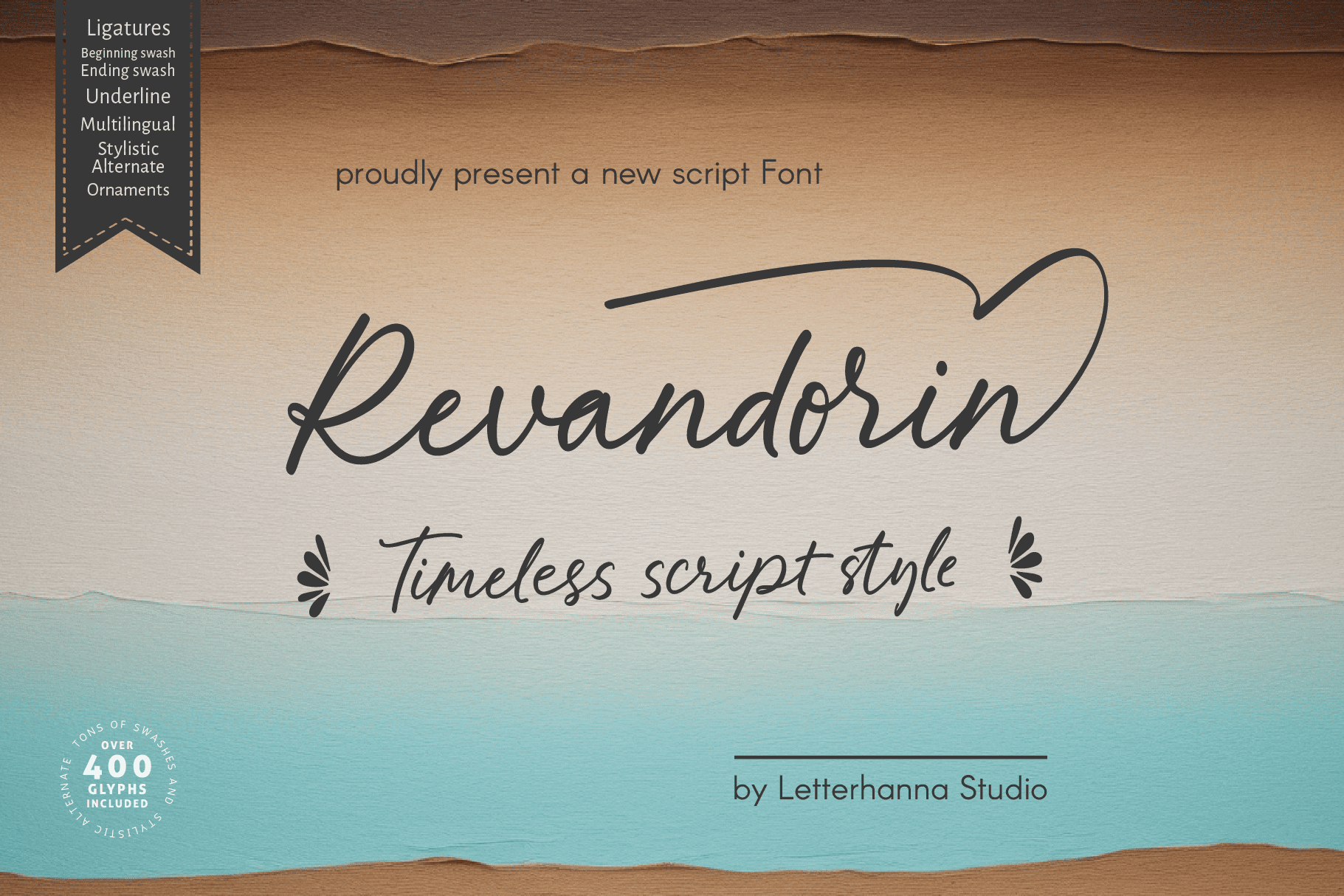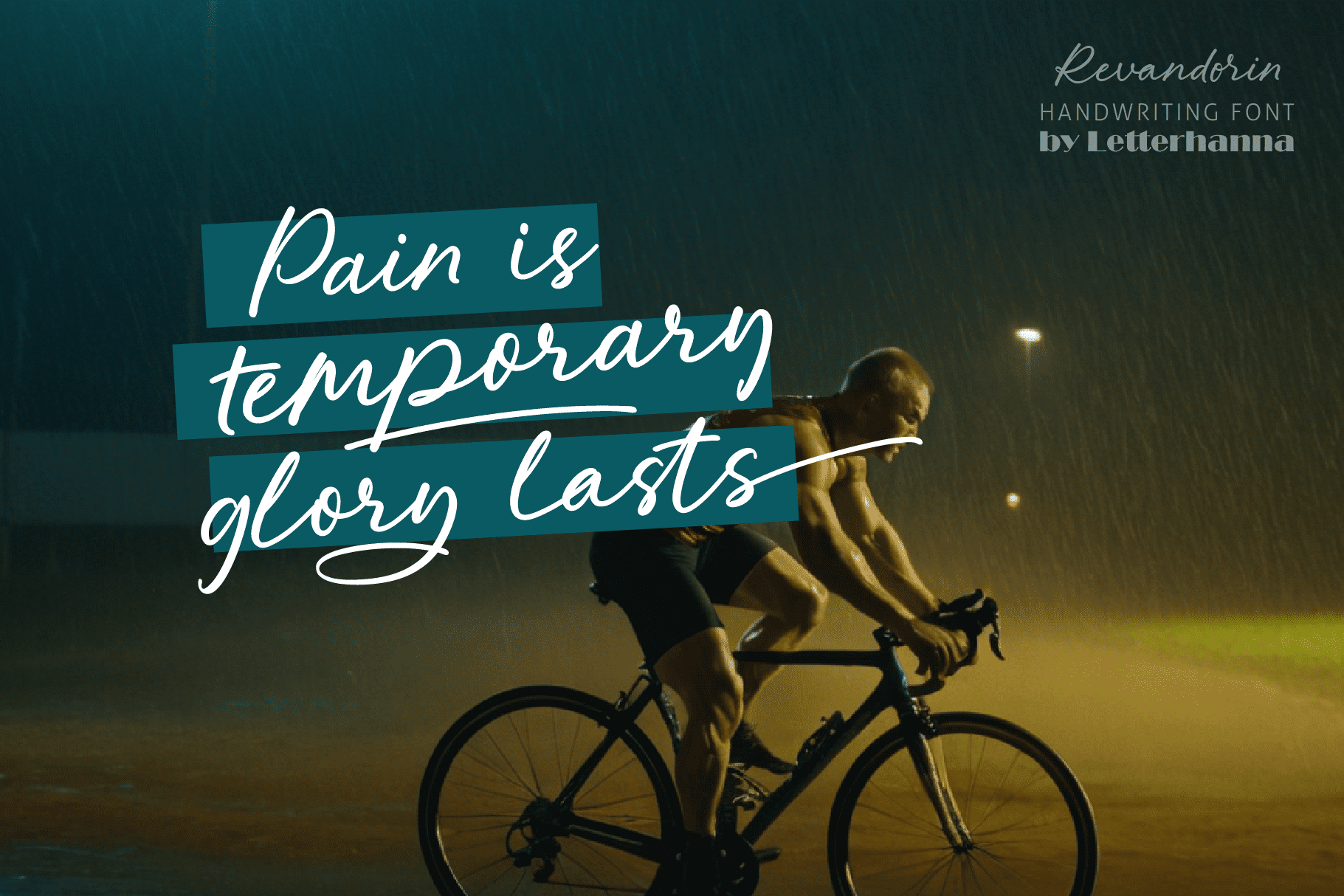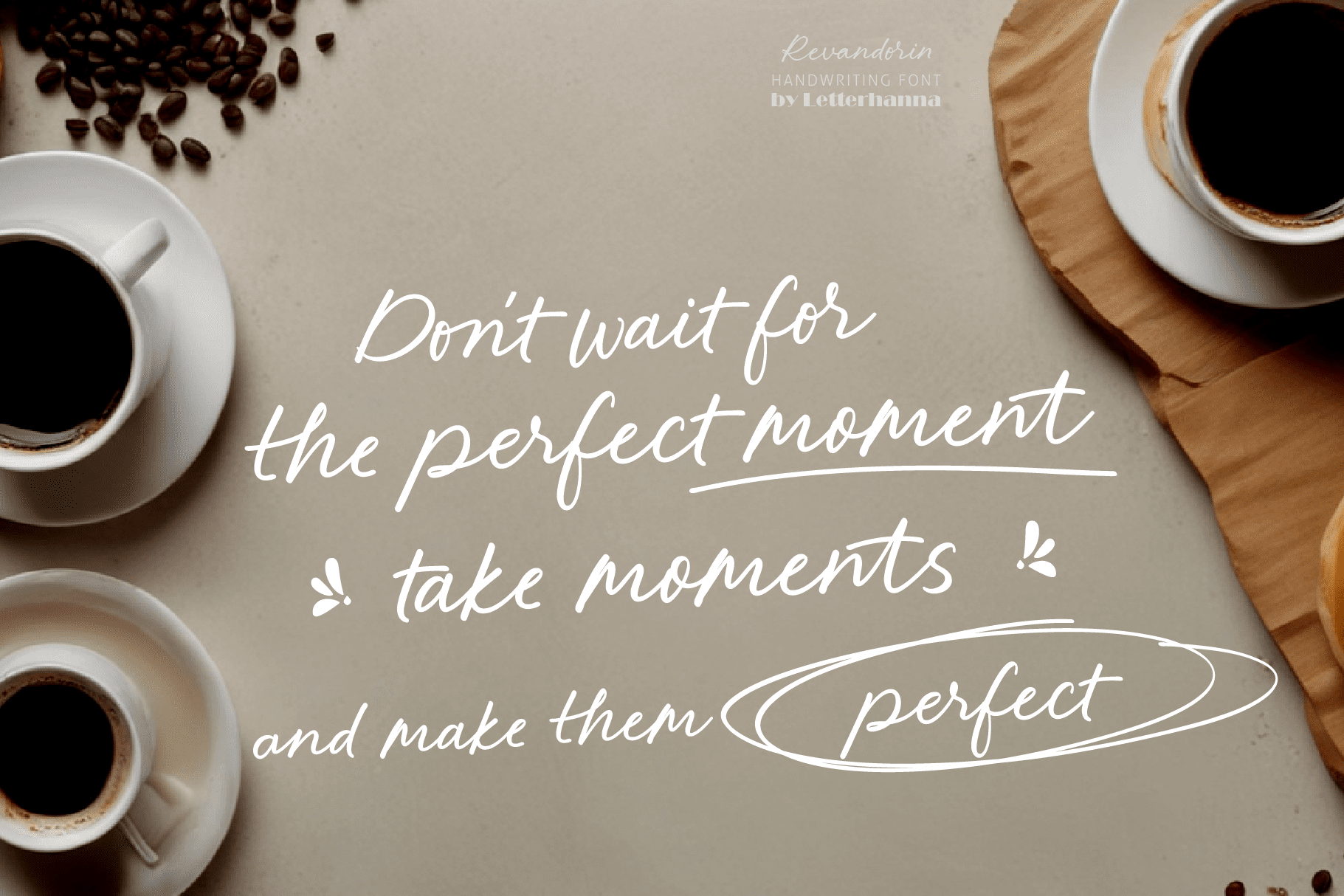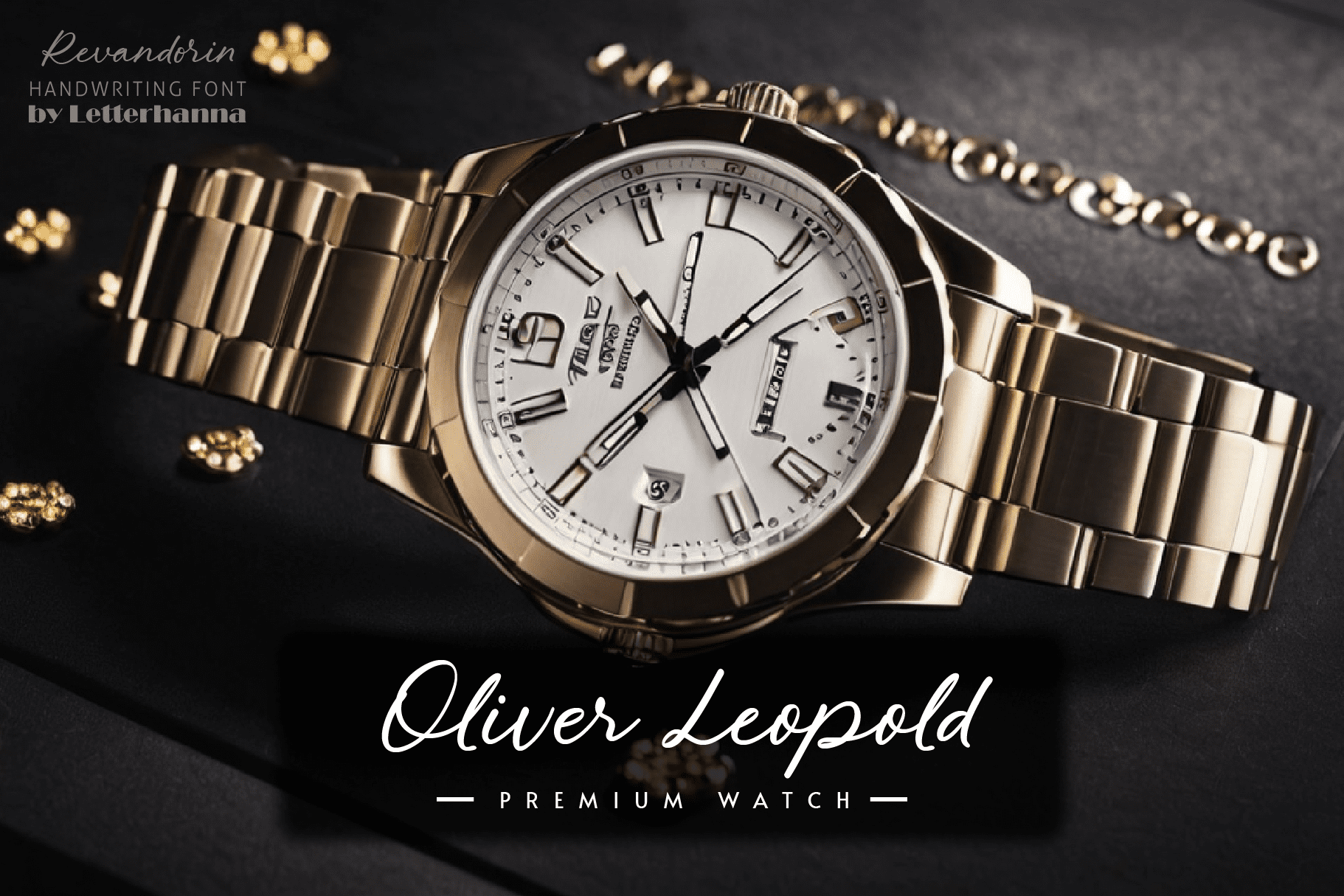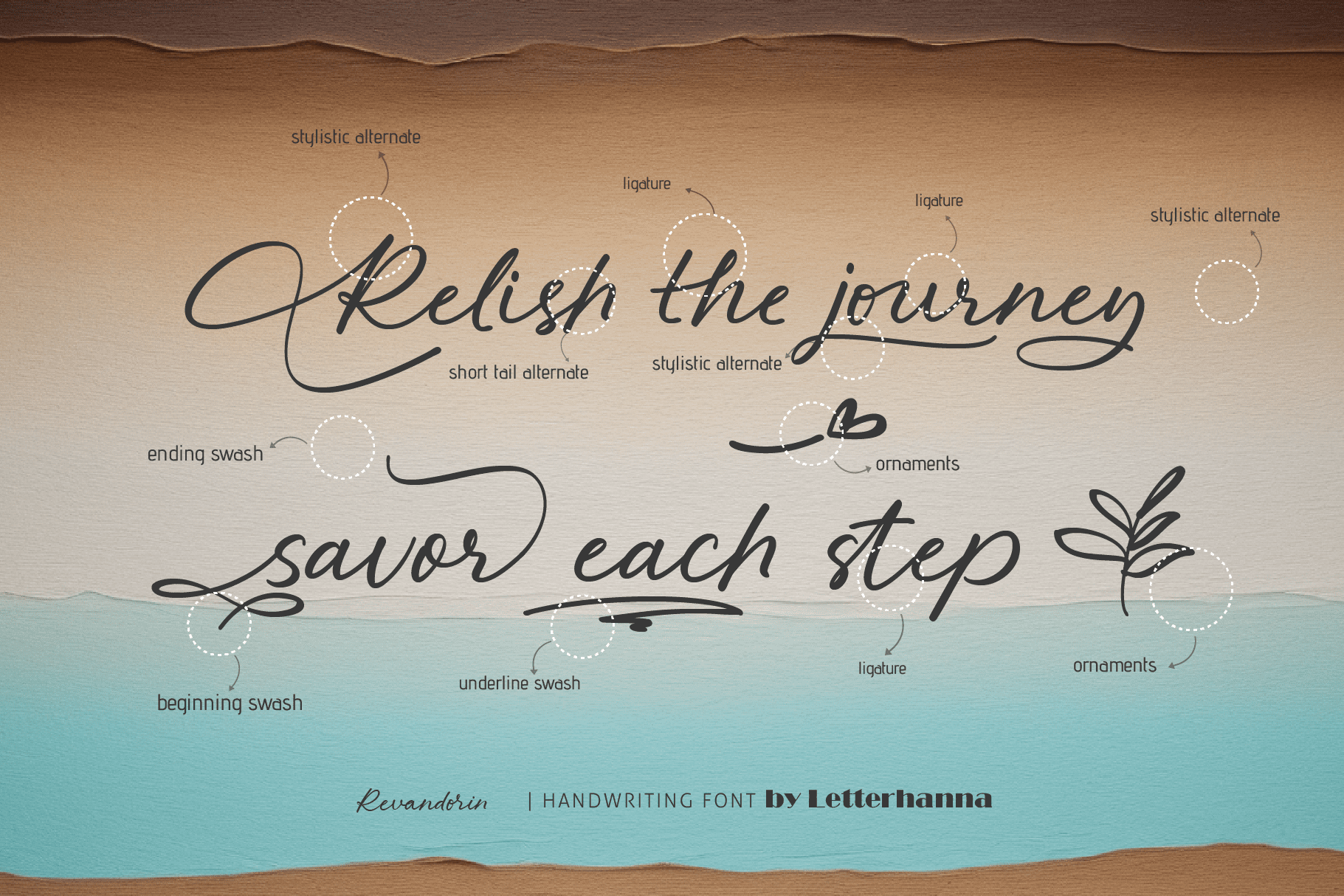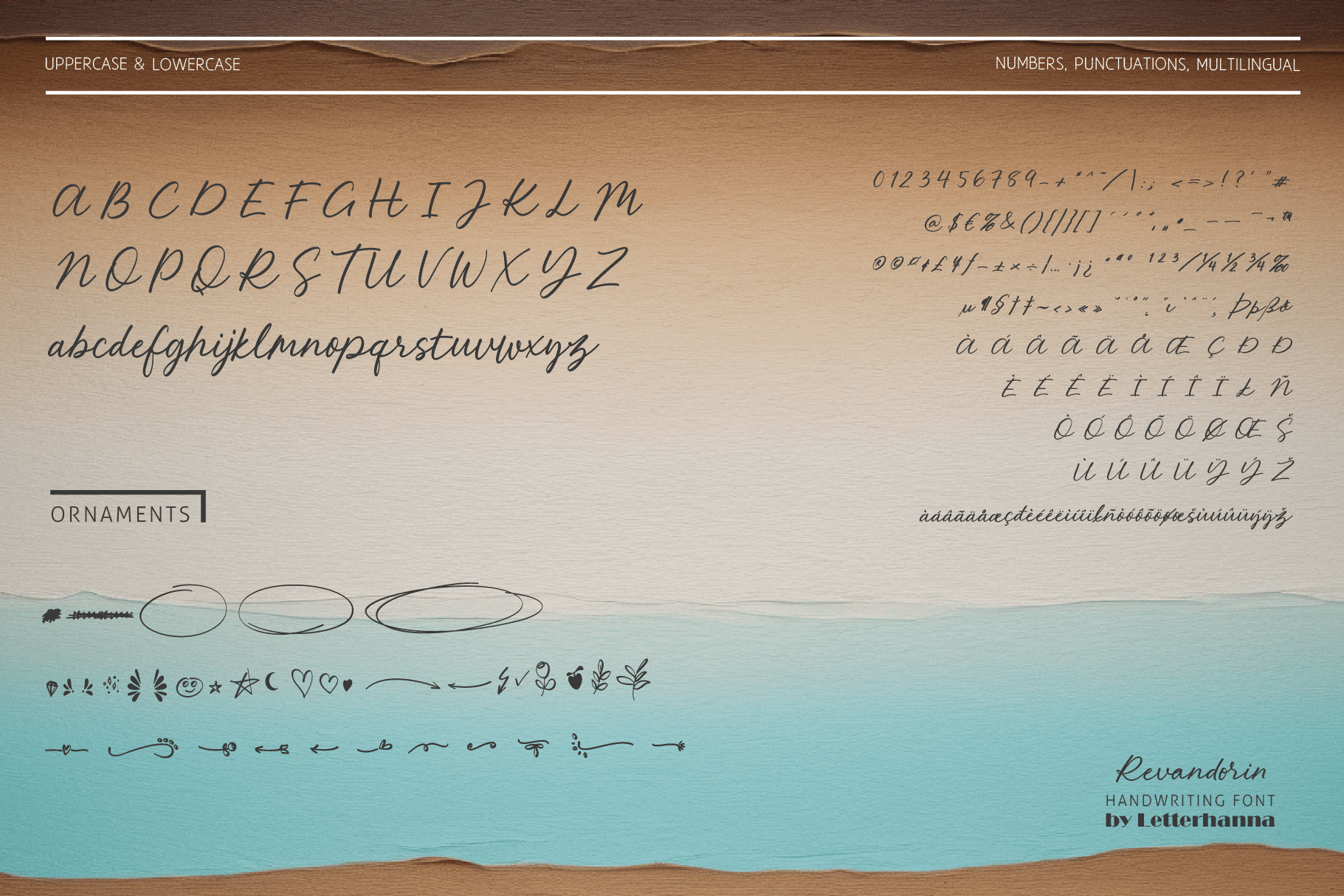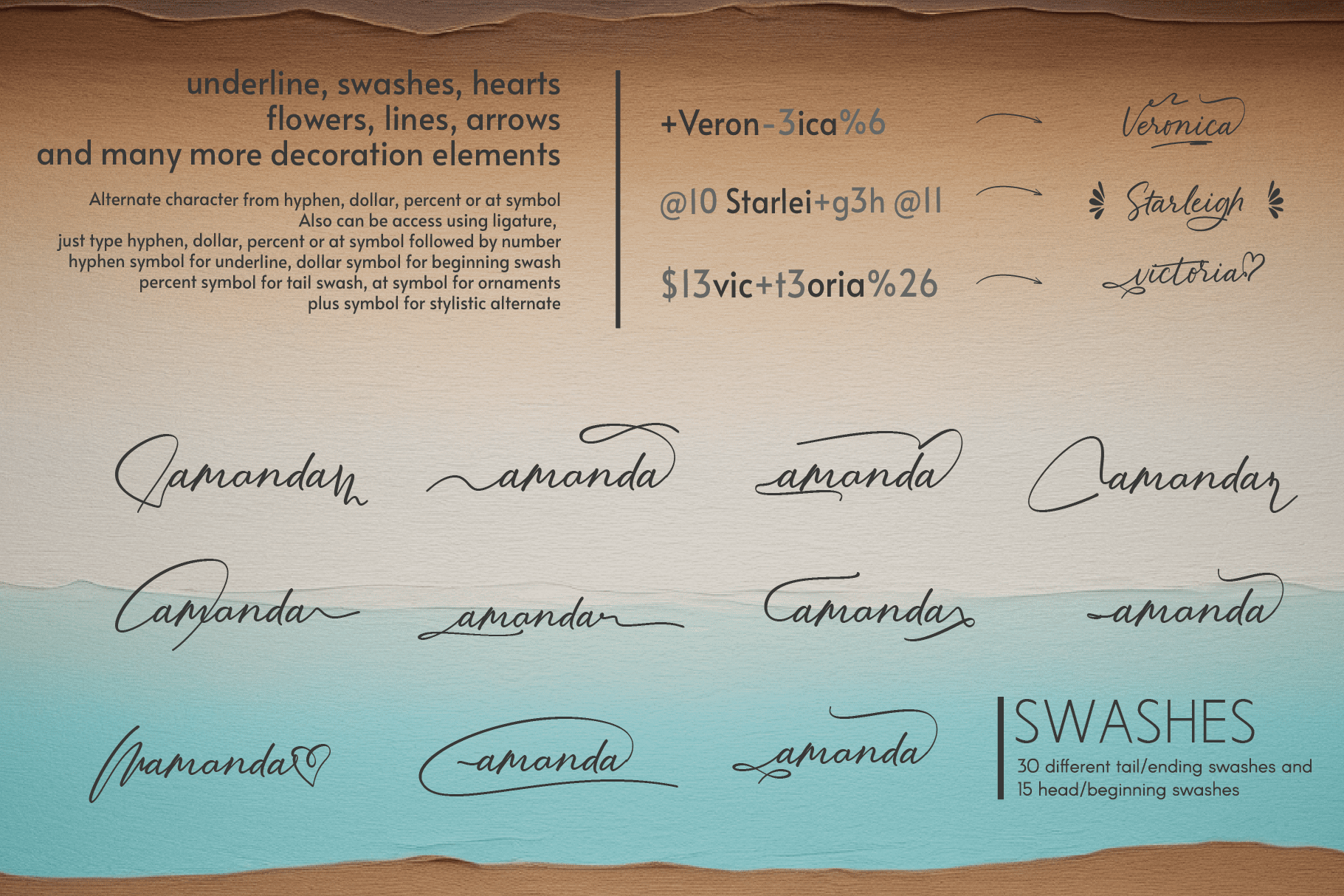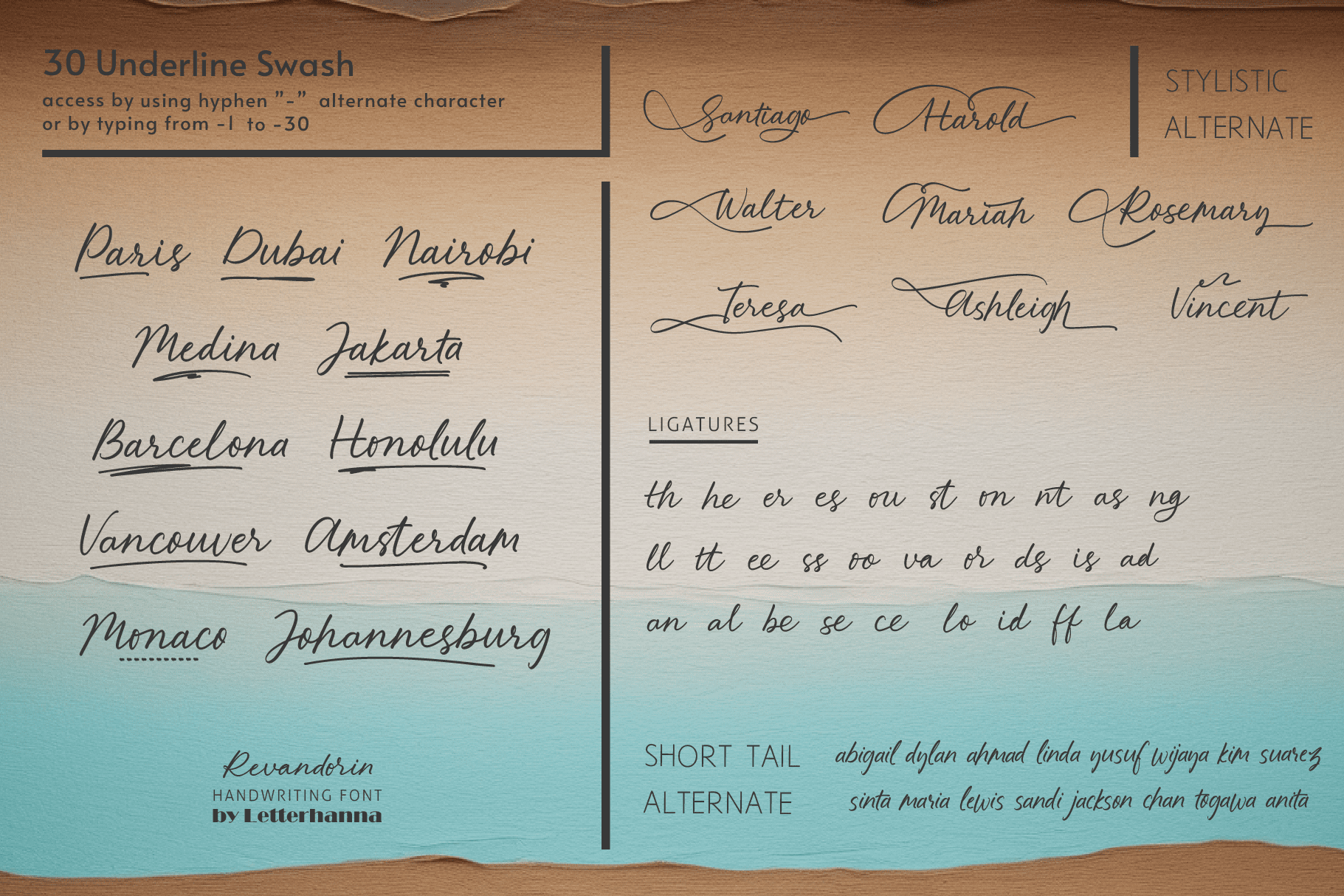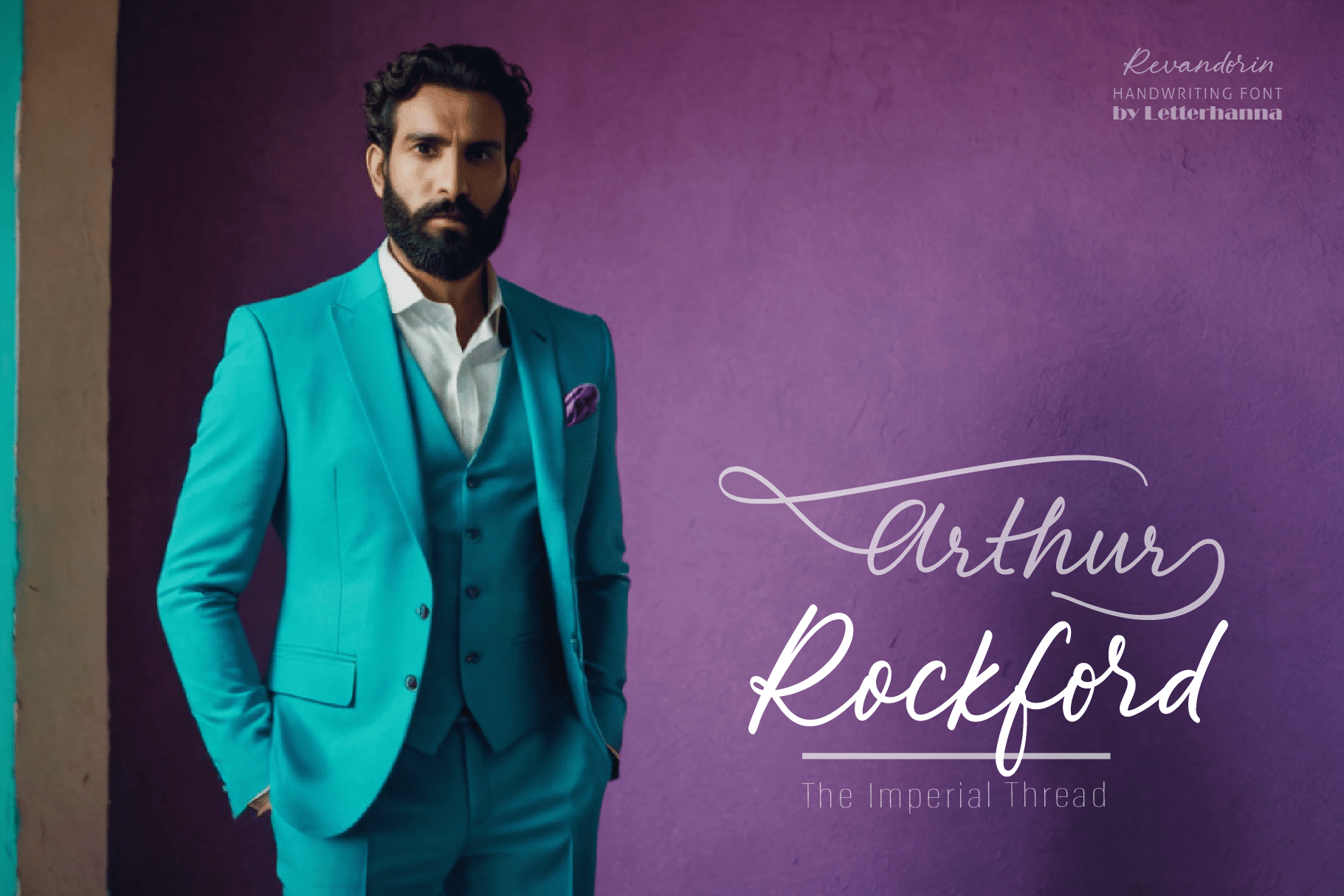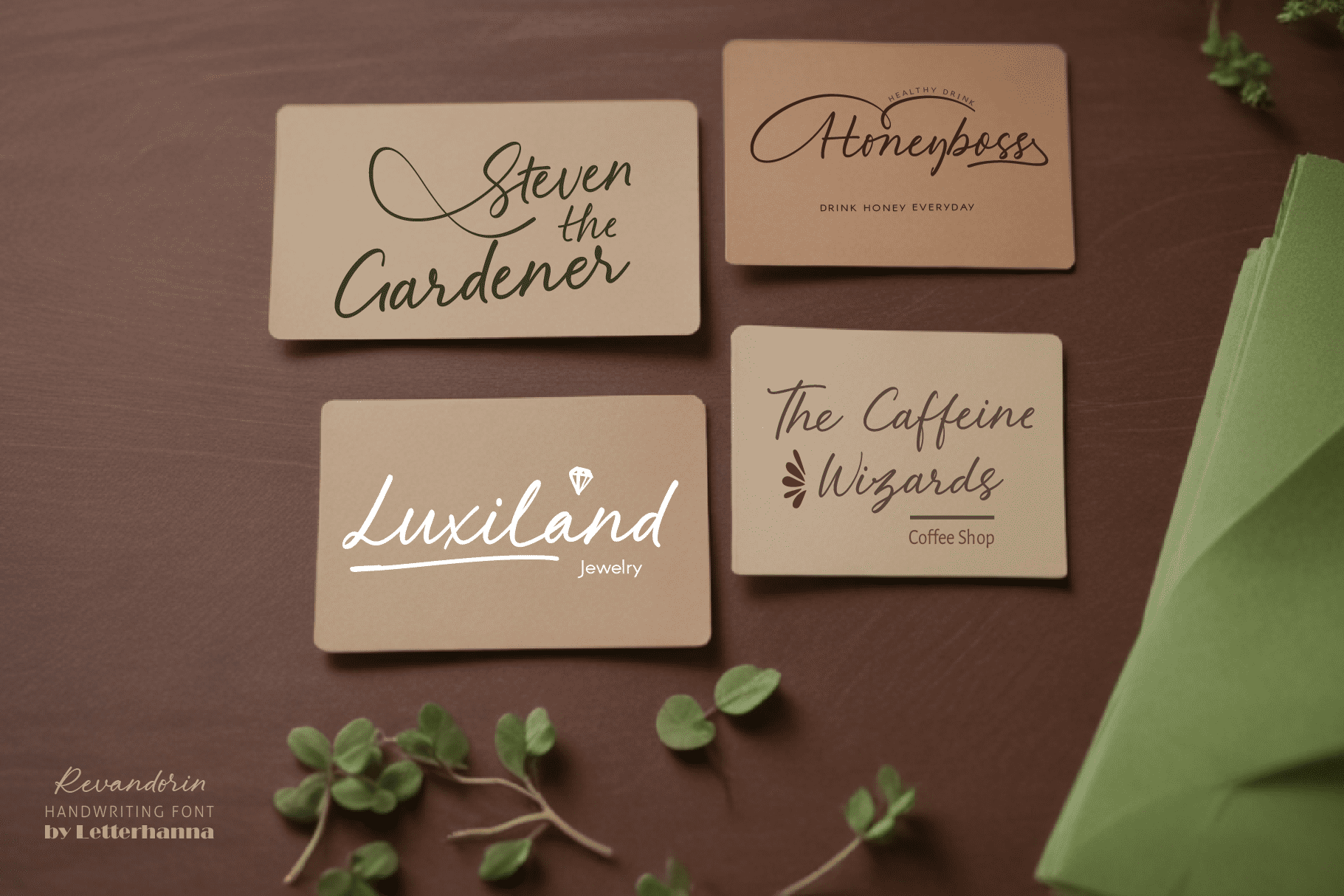
Introducing Revandorin, a bold script font with elegant upstroke calligraphy. This typeface blends power and grace, making every stroke flow seamlessly. Packed with a variety of alternate styles and ligatures, Revandorin offers endless creative possibilities for branding, invitations, and signature-style designs. Elevate your typography with its bold presence and refined details.
Gain easy access to all alternate glyphs, swashes, ornaments, and underlines by simply using ligatures. You can try them out yourself in the font preview tool on our website, letterhanna.com.
- Underline Swashes: Use a hyphen symbol “-” followed by a number between 1 and 30. For example, type “-3”, “-22”, or “-17” to get various underline swashes.
- Head/Beginning Swashes: Use a dollar sign “$” followed by a number between 1 and 9. For example, type “$2” or “$8” to get different head/beginning swashes.
- Tail/Ending Swashes: Use a percent sign “%” followed by a number between 1 and 30. For example, type “%3” or “%15” to get various tail/ending swashes.
- Ornaments: Use an “at” symbol “@” followed by a number between 1 and 26. For example, type “@4” or “@13” to get different ornaments.